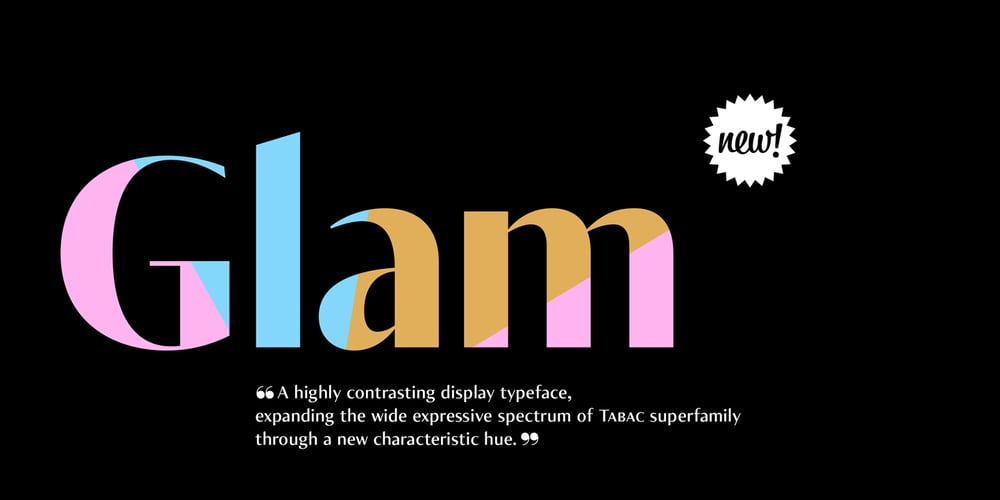
Tabac Glam Font Family was designed by Tomáš Brousil and published by Suitcase Type Foundry. Tabac Glam contains 32 styles and family package options. A special category of typefaces, combining together principles of both serif and sans-serif, is sometimes described as Linear-Antiqua by German typographers. This concept catches the eye wherever it appears and this is also the case of Tabac Glam — a highly contrasting display typeface, expanding the wide expressive spectrum of our Tabac super-family through a new characteristic hue. Tabac Glam is naturally a great complement to the serif Tabac. It’s however only in conjunction with other styles of the superfamily — Sans, Slab and Mono, that you’ll be able to unleash the enormous potential of the wide range of combinations, and the family’s 112 styles will certainly satisfy all needs of both elegant and technical typesetting. Tabac Glam will best stand out in huge grades, on the covers of thick magazines under glossy layers of UV coating, or on snow-white surfaces of displays.